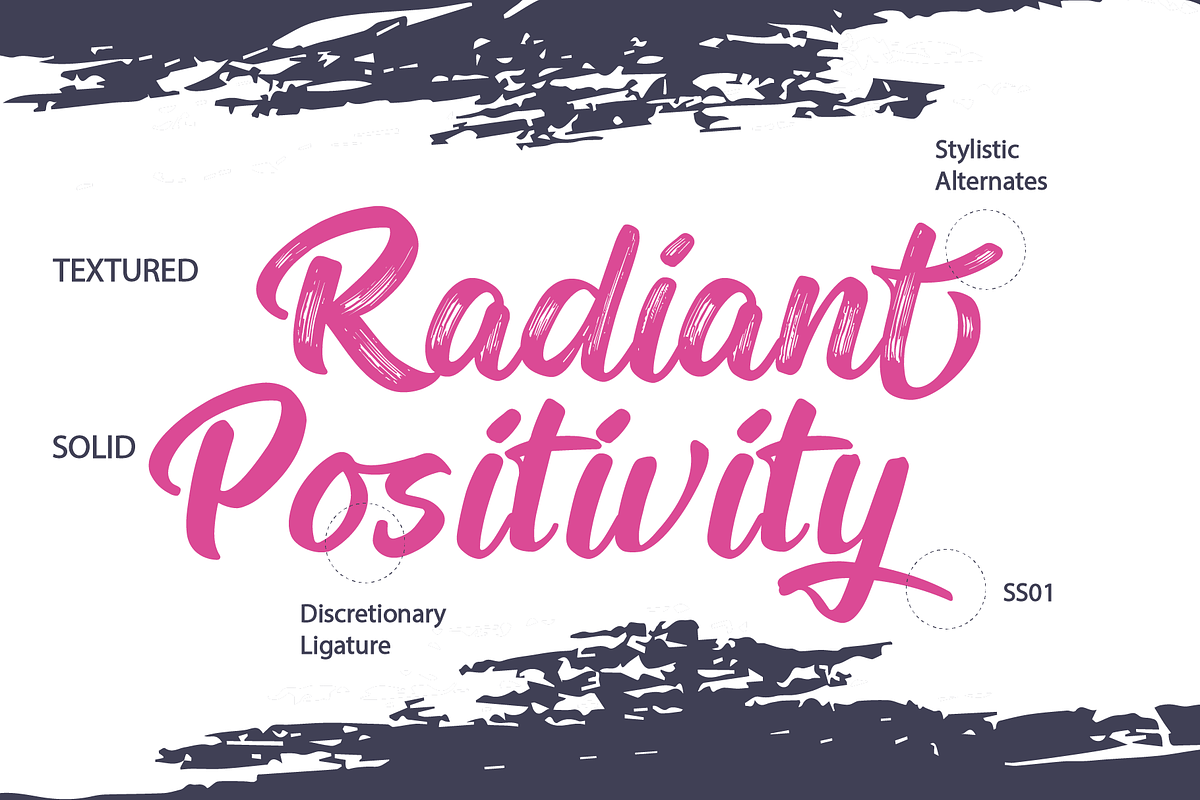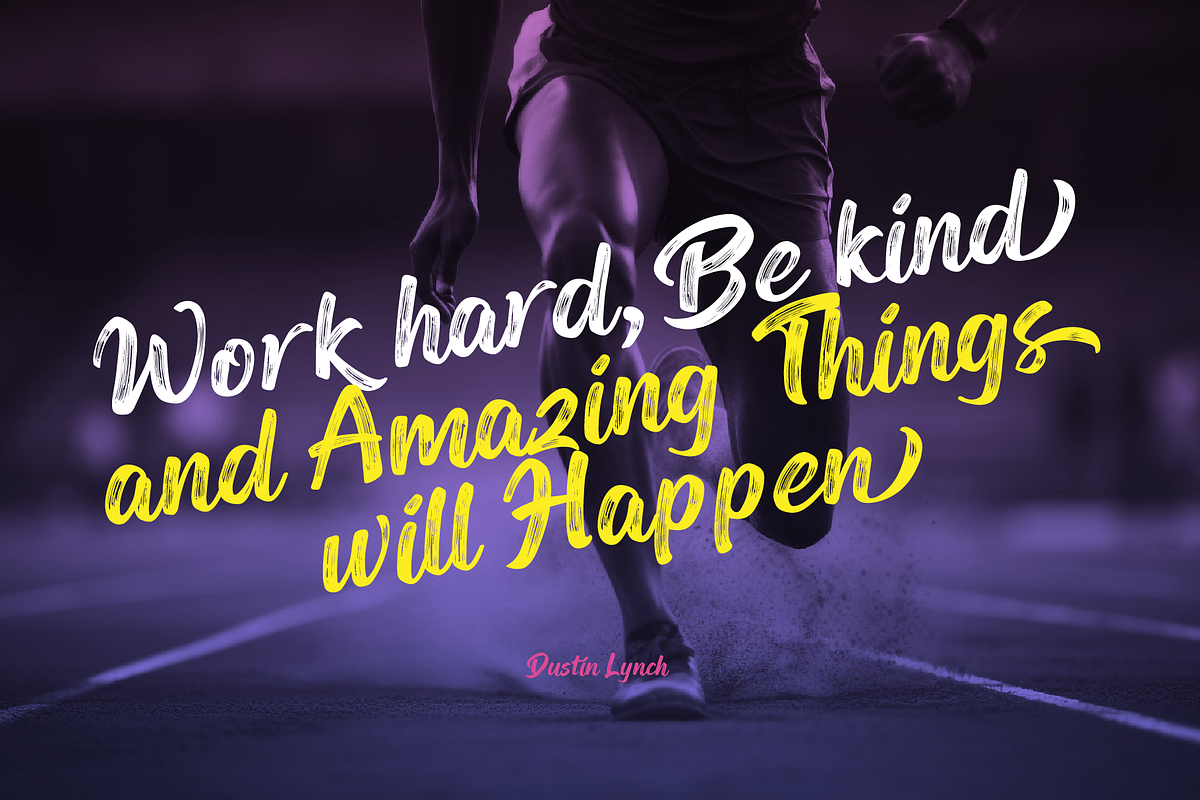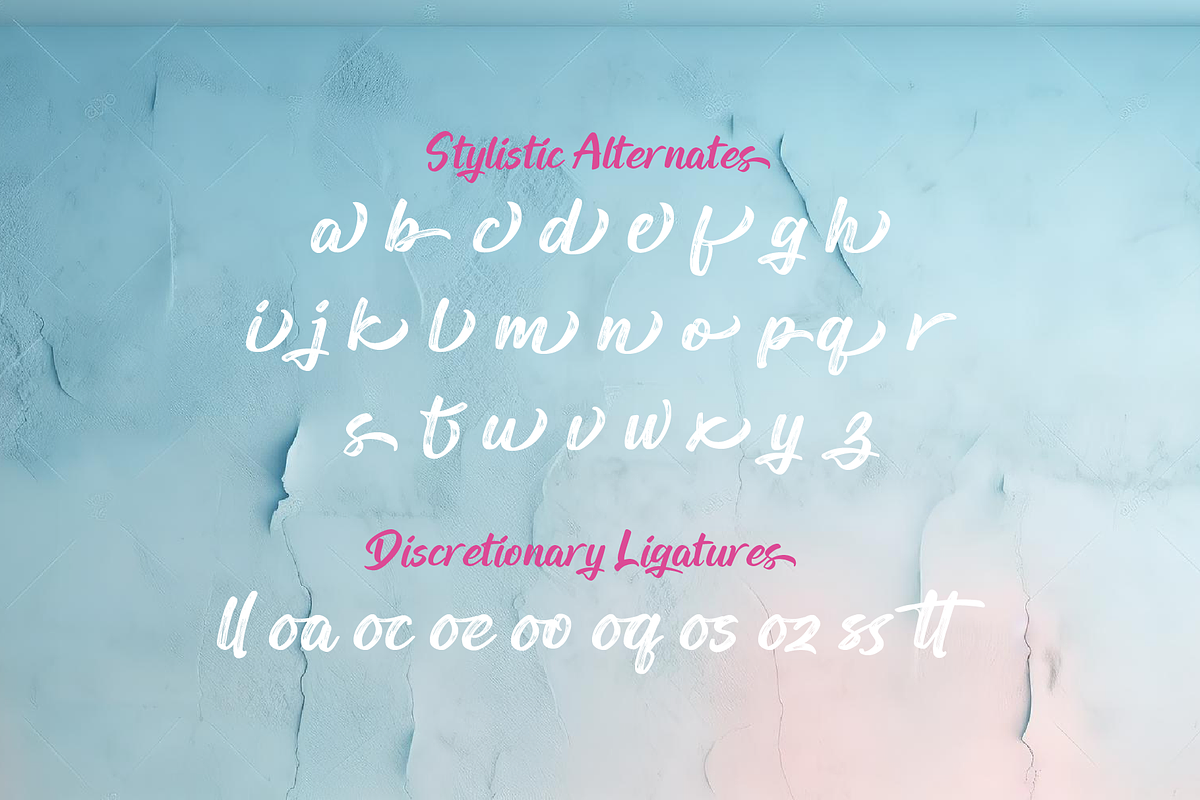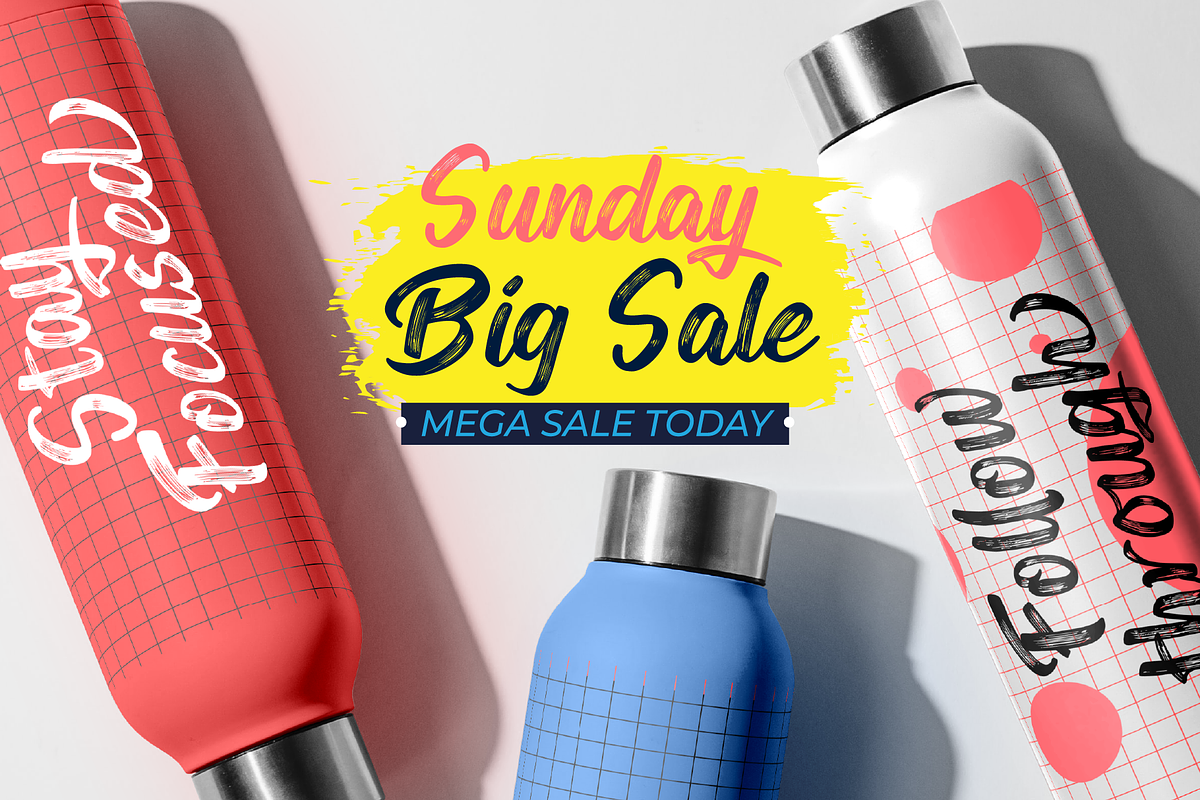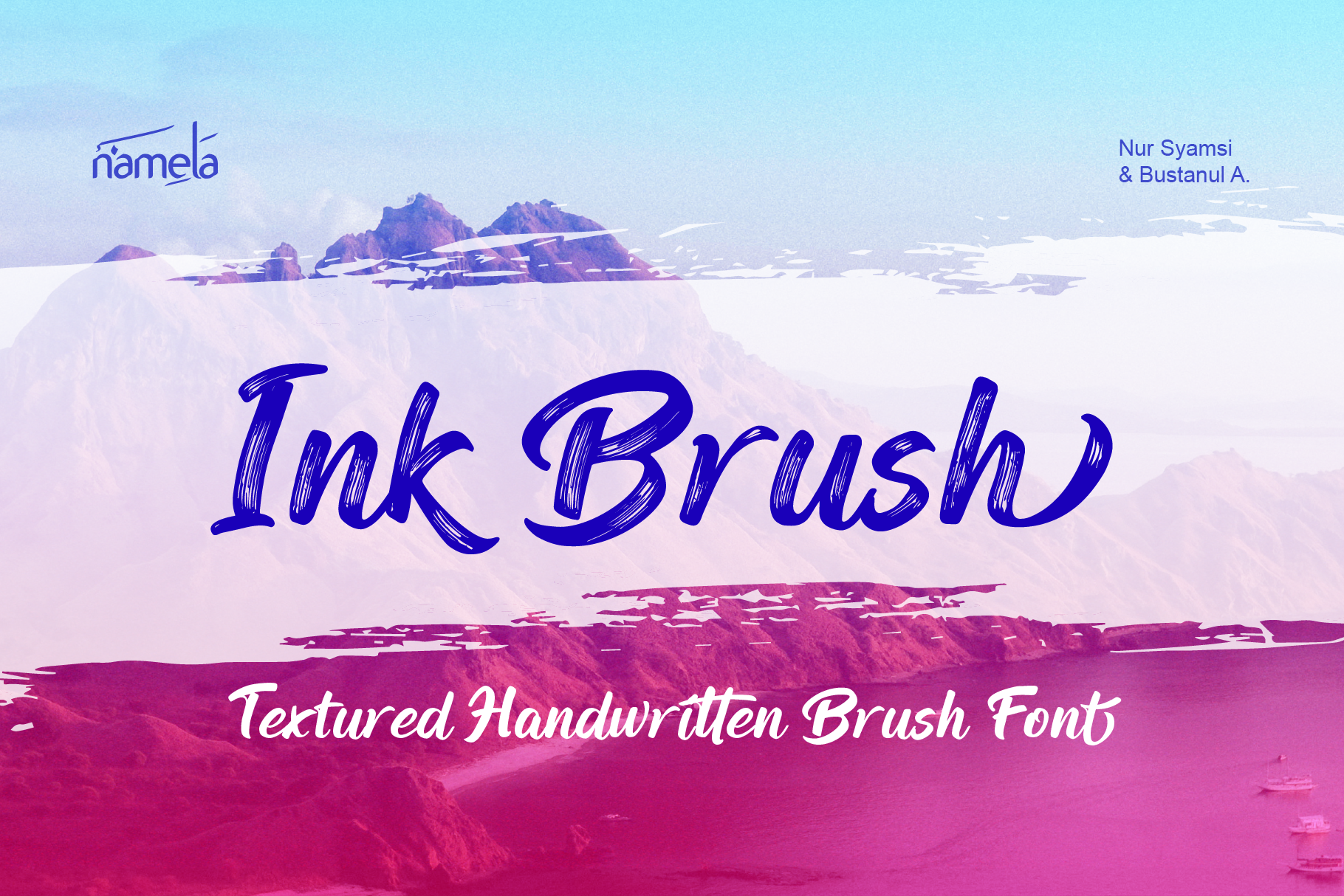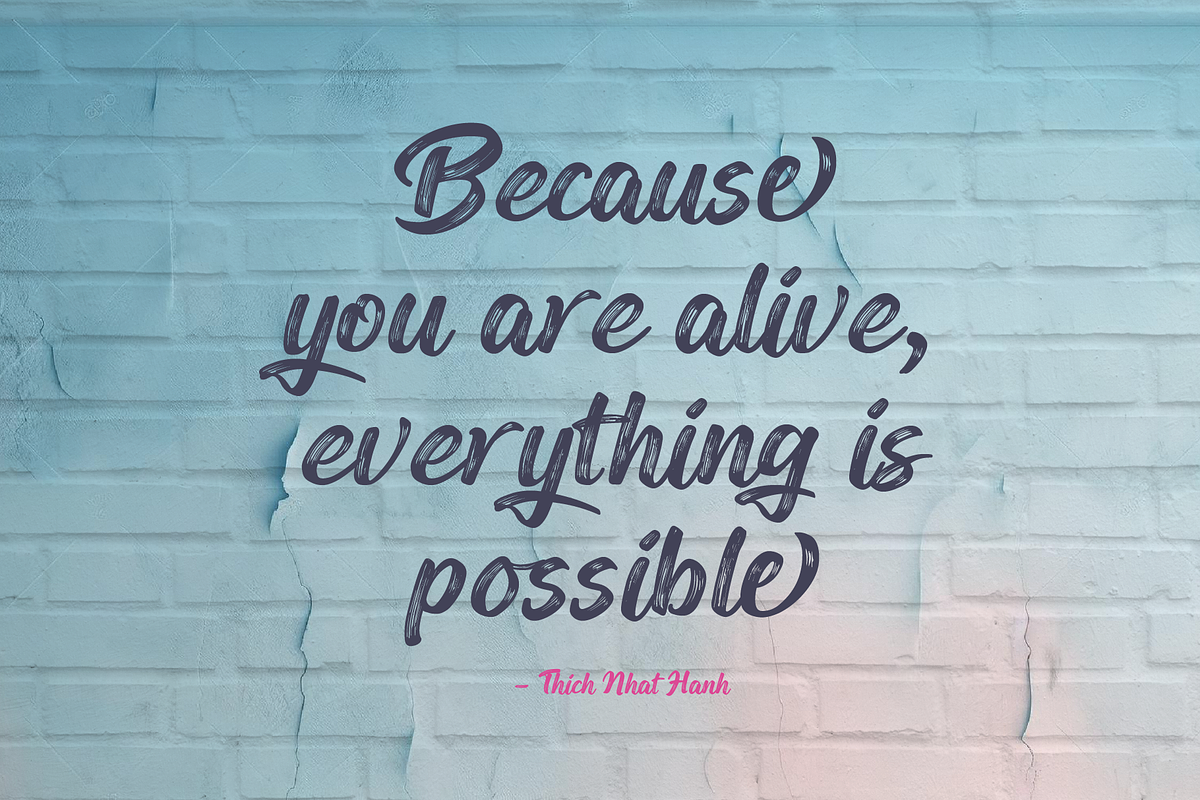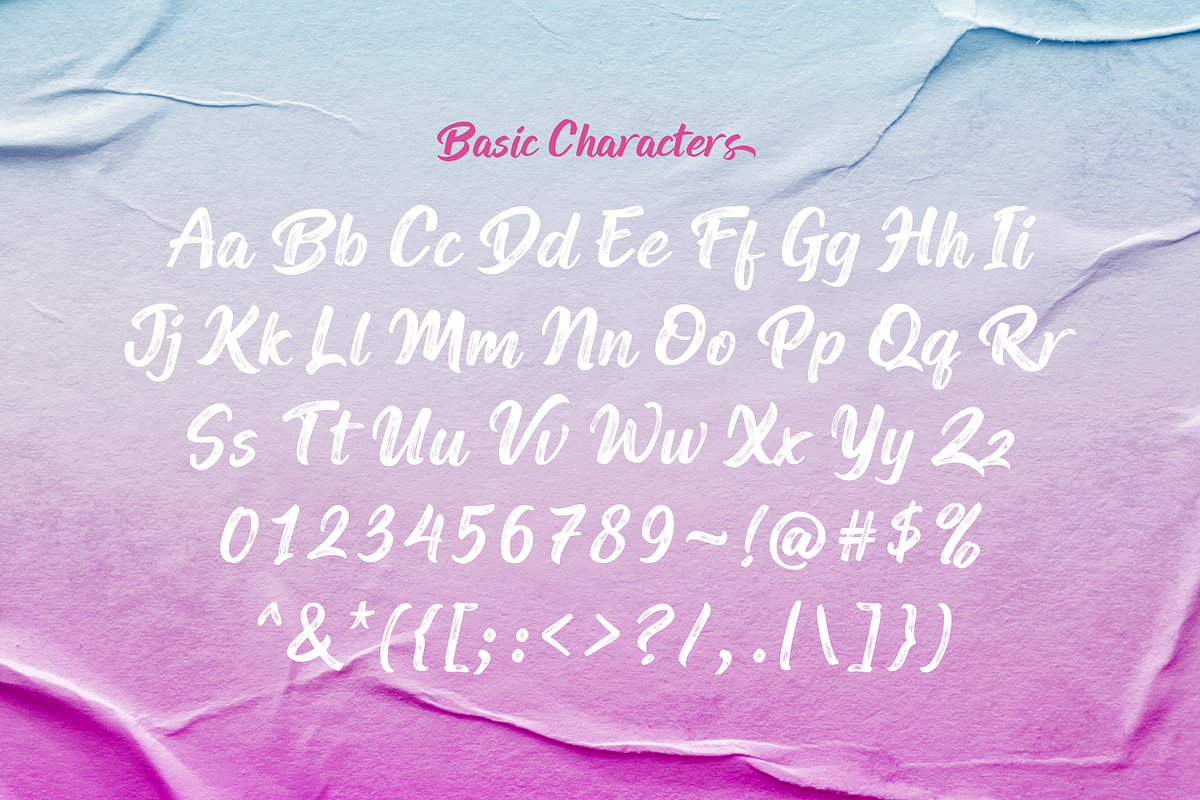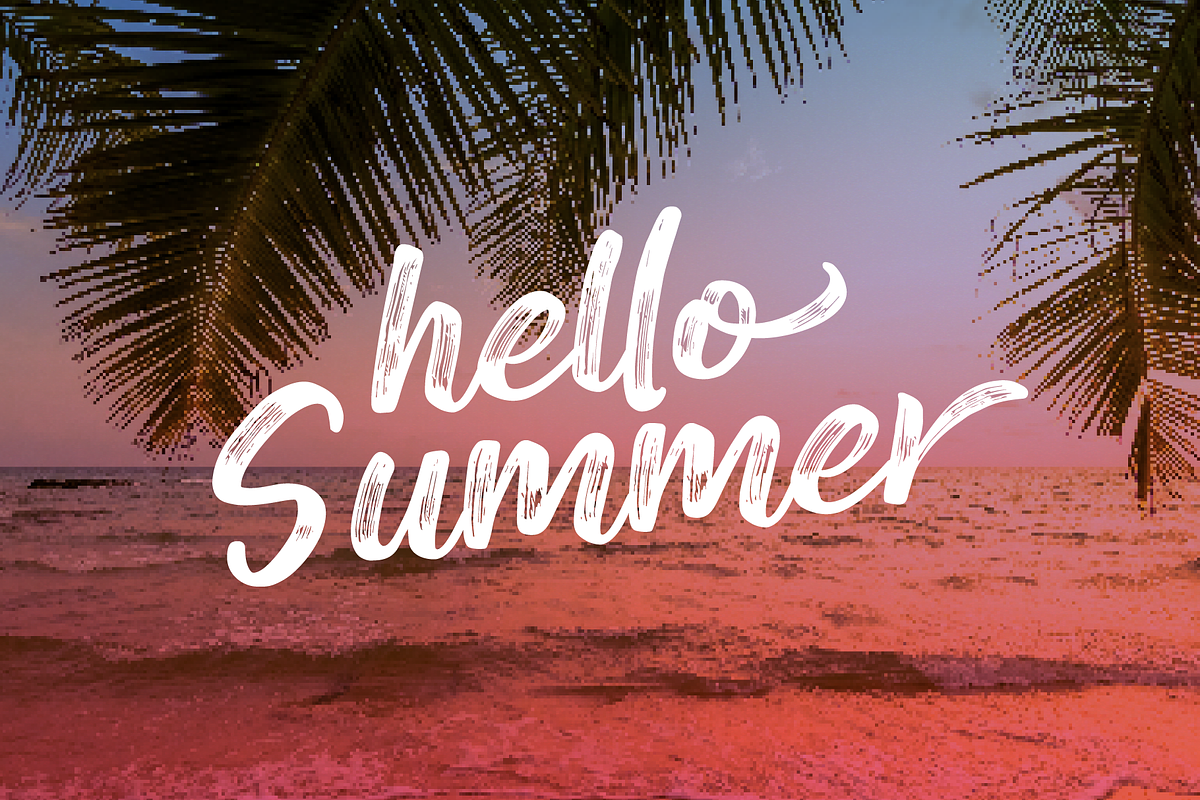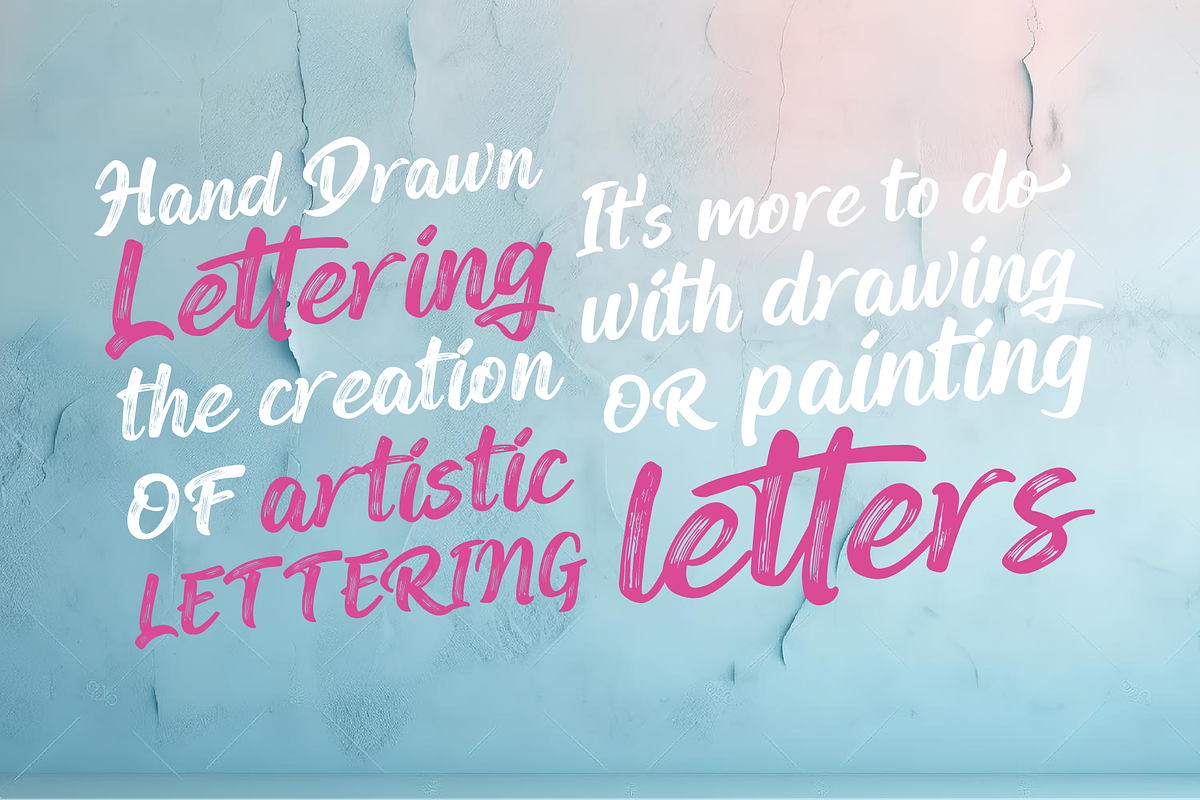
Ink Brush, Handwriting Brush Font
The Ink Brush Font is a captivating addition to the world of typography. This versatile typeface offers two distinctive versions, adding a dynamic element to your creative projects. The textured version brings a sense of artistic spontaneity with its handmade appearance, while the solid version delivers clarity and precision. Whether you’re aiming for a rustic, handcrafted feel or a sleek, professional look, the Ink Brush Font has you covered. It’s perfect for a wide array of design applications, from branding and packaging to invitations and artistic endeavors, infusing your work with character and style.